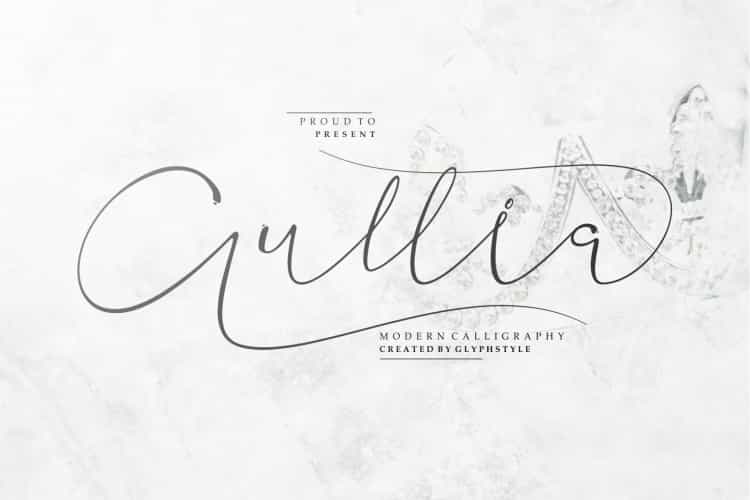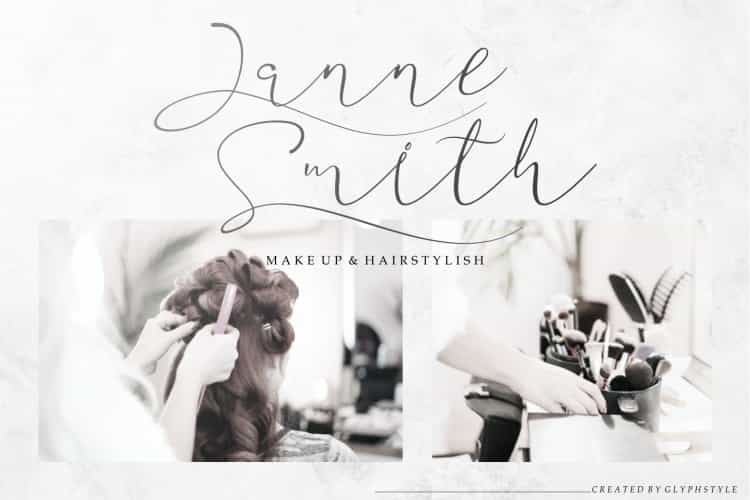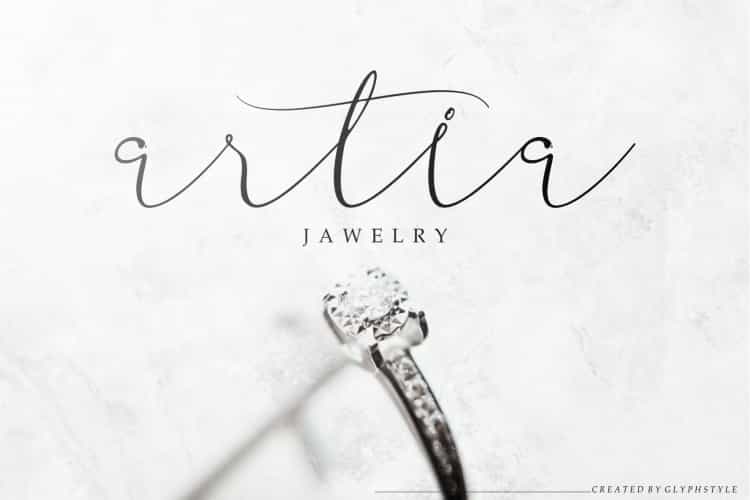
Aullia Font is a charming script that gives the luxury vibe. Natural hand writing script is the font for you if you need a typeface which can be used in headlines, logotypes, apparel designs wedding invitations valentines day cards branding packaging advertising watermarks etc.